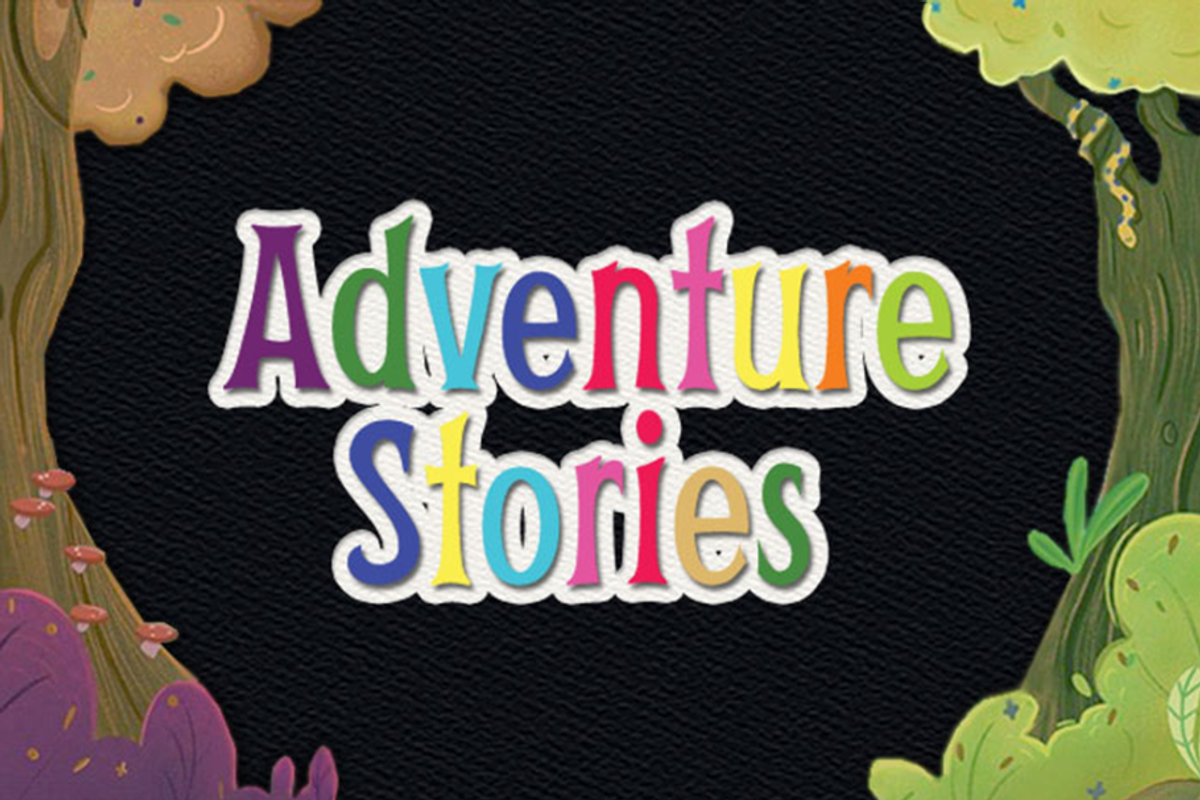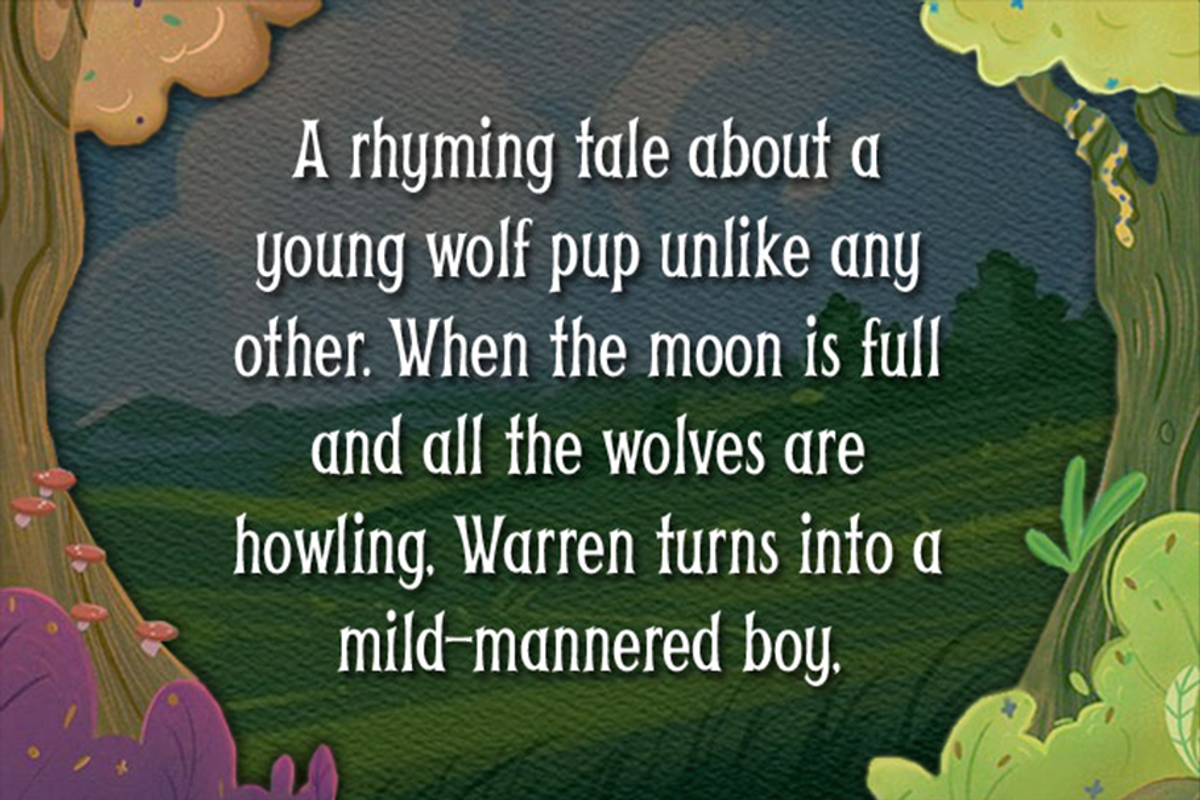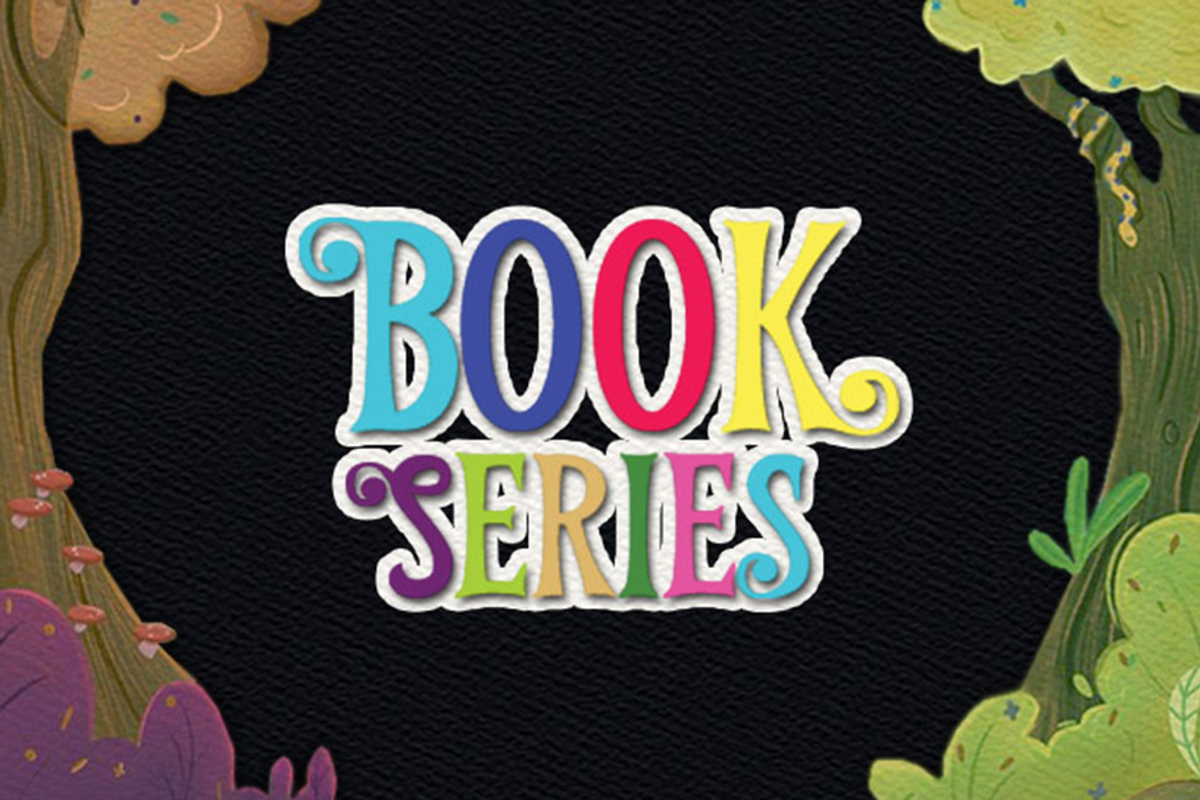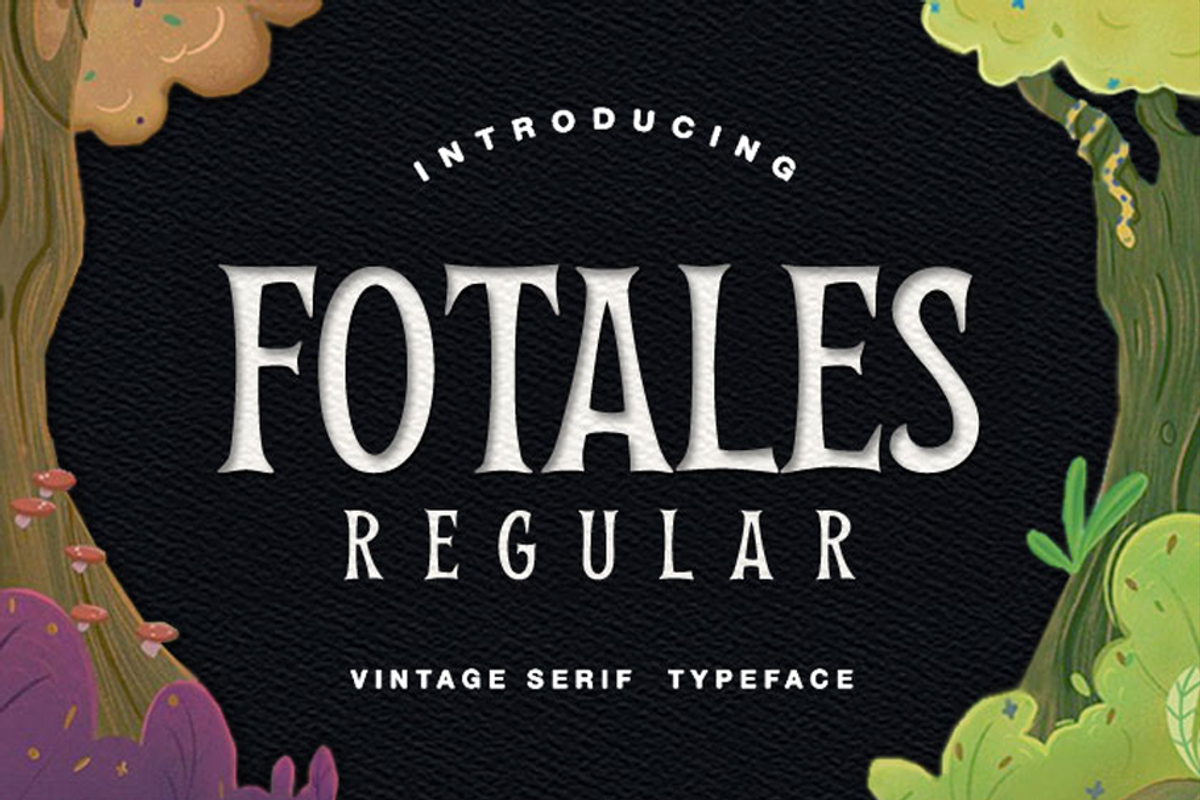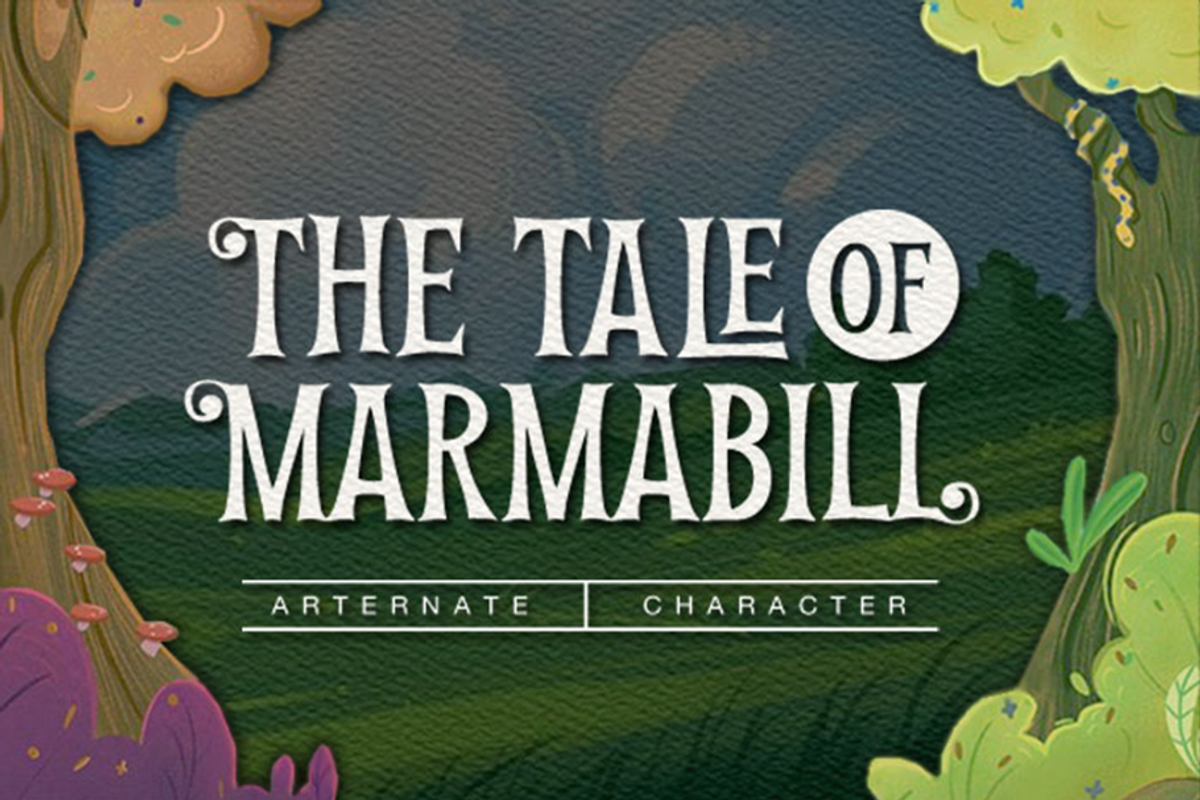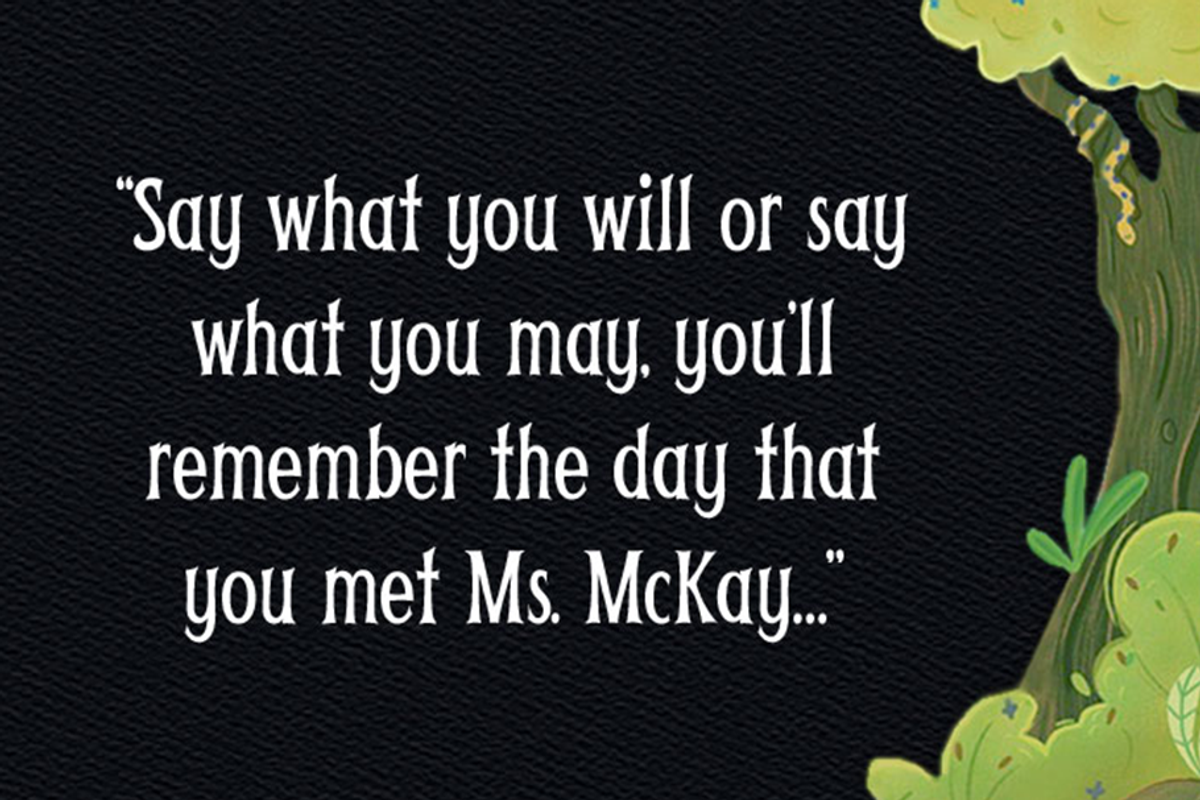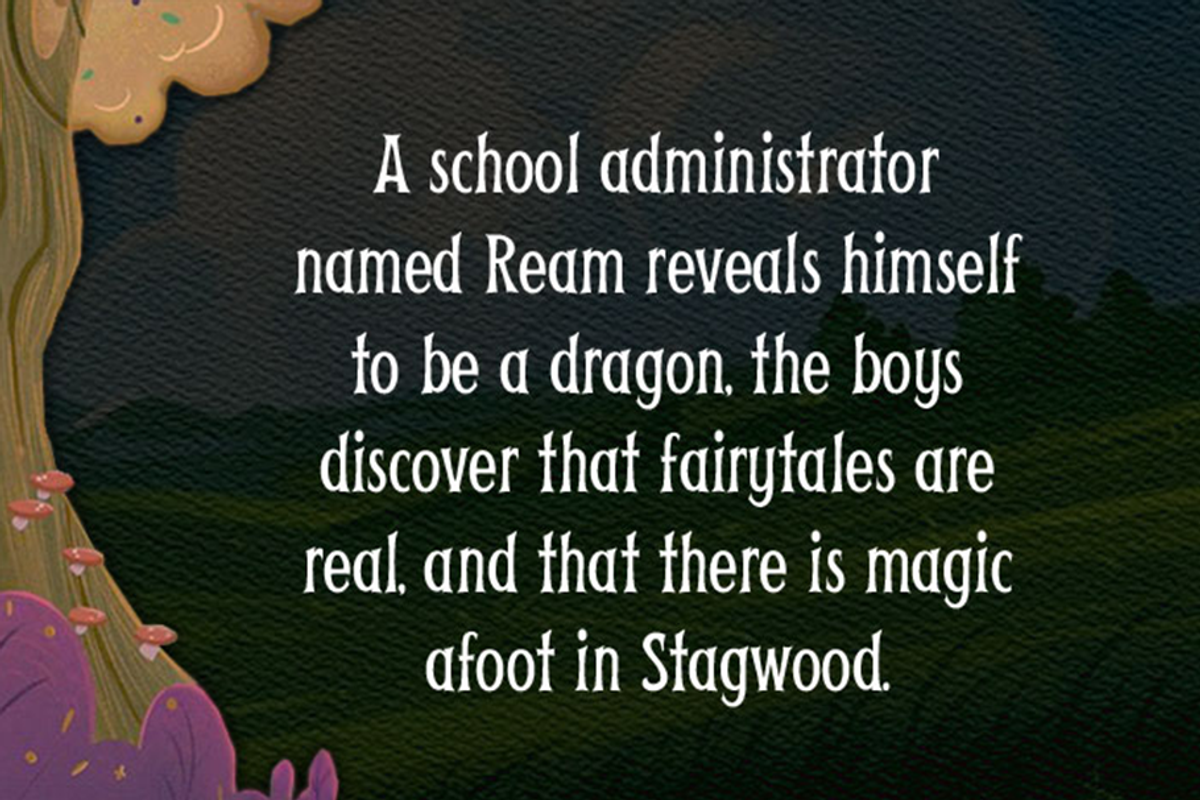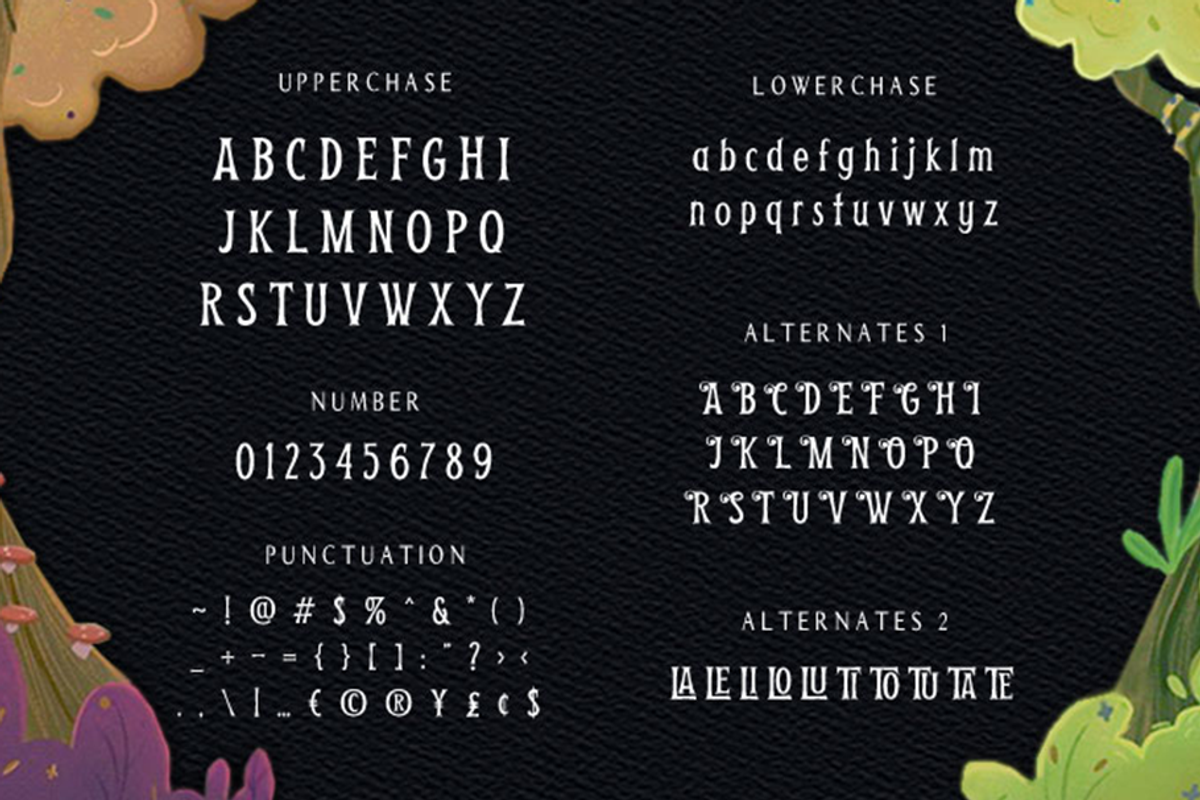
Fotales
Fotares is handwritten font it’s looks funny, kids, girly, catchy and easy to use. Fotares is the great choice for for all activity, signature or signature logo design, quotes, album cover, business card and many other design project. Fotares is here to make your work or your business to high level!!! Features
- alternate and ligature
- begin and end swashes